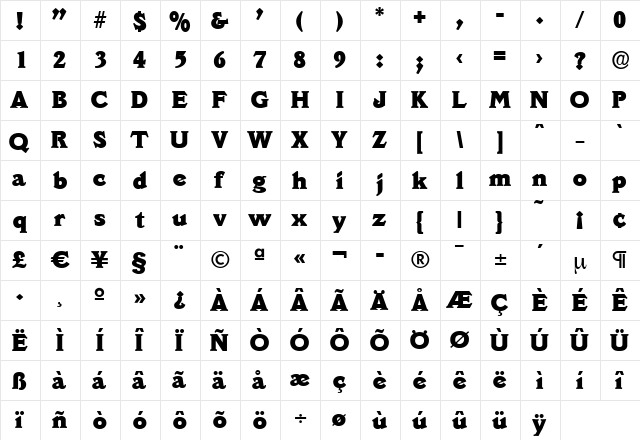
LeroyBecker-Heavy Regular
Design Context for LeroyBecker-Heavy Typeface
LeroyBecker-Heavy is a composed and adaptable typeface that performs quietly and consistently across a wide range of design contexts.